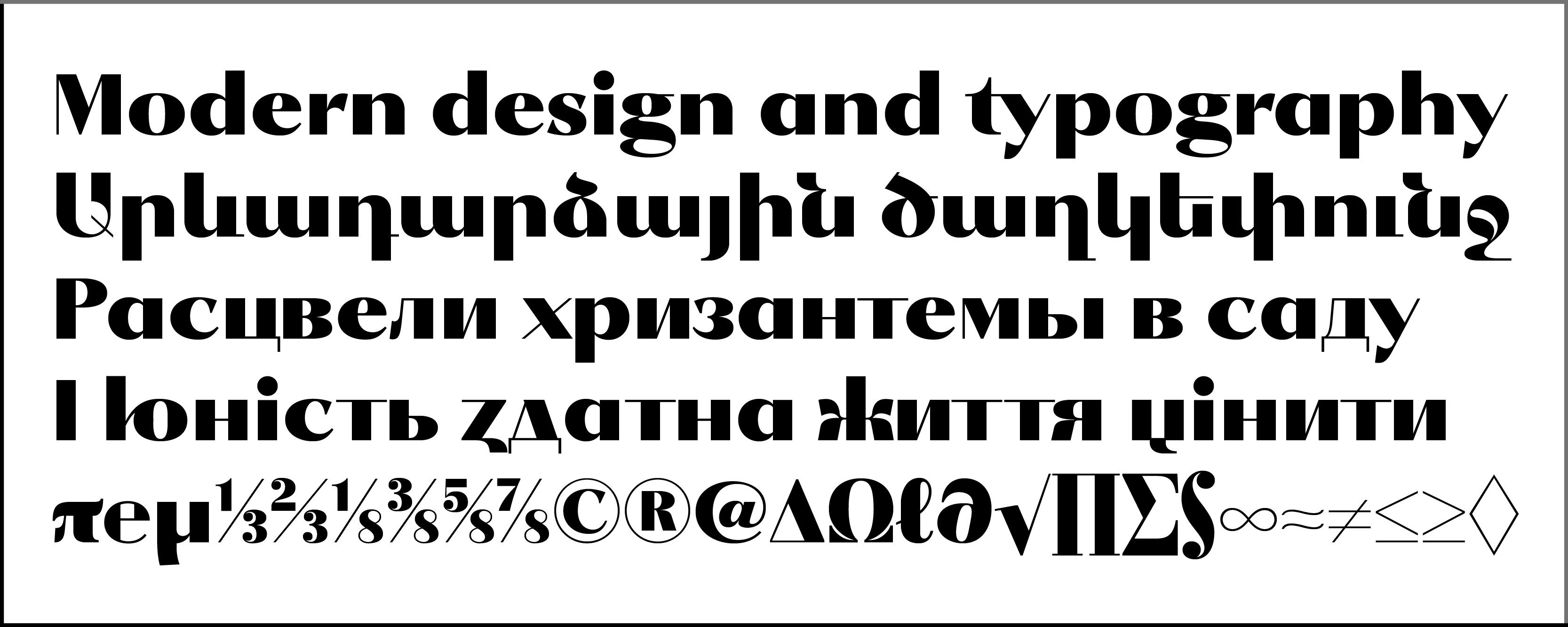
GHEA Fortune Black
GHEA Fortune Black is a Display font for using in titles, posters, presentations and advertisements.
It included Armenian, Cyrillic and LatinPro language systems and Ukrainian Alternatives.
The font includes Basic and many Advanced Ligatures for Latin and Armenian.
Awarded Gold medal in Granshan International Type Design Competition 2023-2024 years.